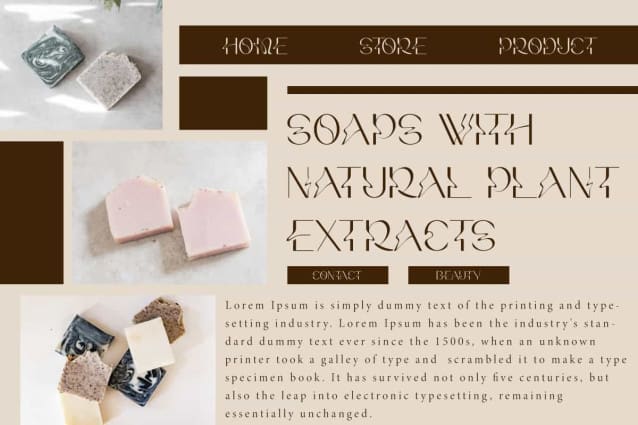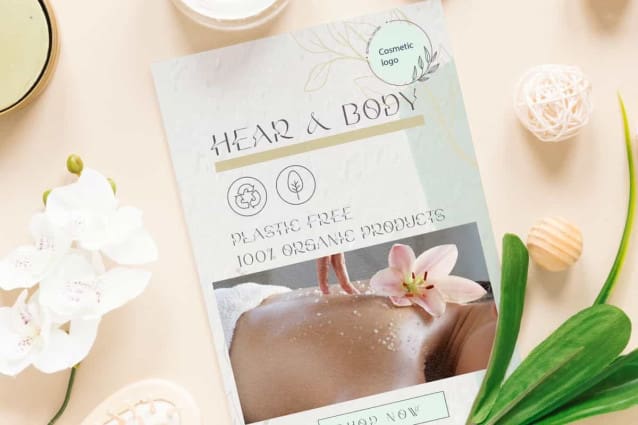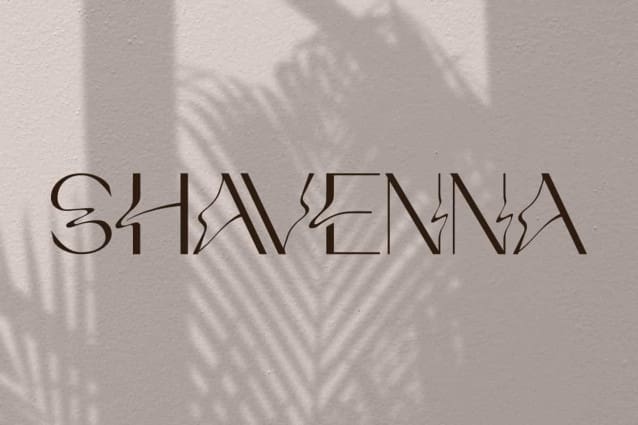
Shavenna Font
Shavenna Font is a uniquely stunning beautiful sans serif display font. Tempting your eyes with her curves but still managing to maintain it’s classy composure. It can be used for advertising, blog, brand image, custom design, invitation, label, layout design, logo, quotes, stationery, template designs, and more!
Shavenna Font includes a complete range of Uppercase and Lowercase Basic Characters, Numbers, Punctuation, and Symbols. This font has a curved body character which looks amazing. Suitable for accessories and jewelry, beauty product, event or wedding organizer, fashion, flower shop, furniture, real estate, spa and salon, etc.